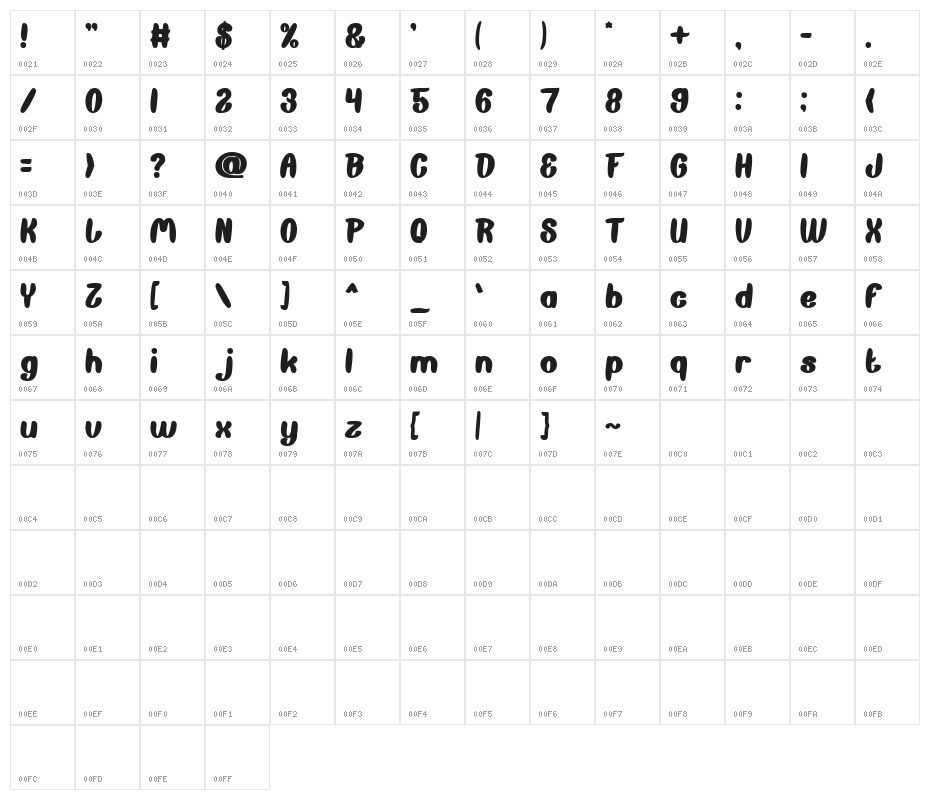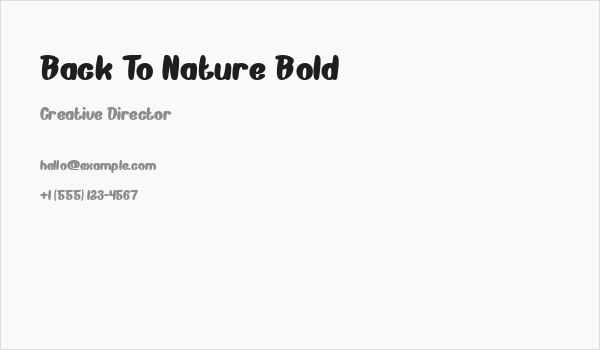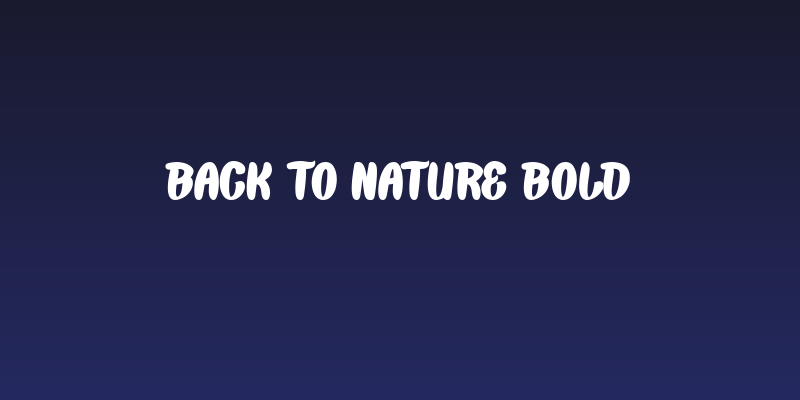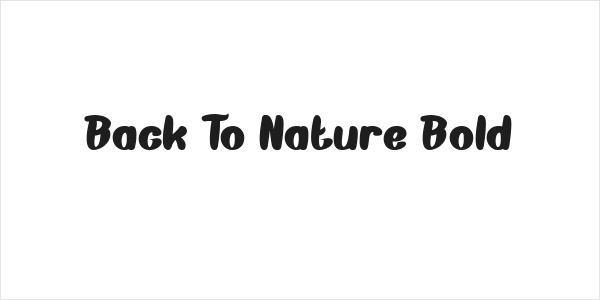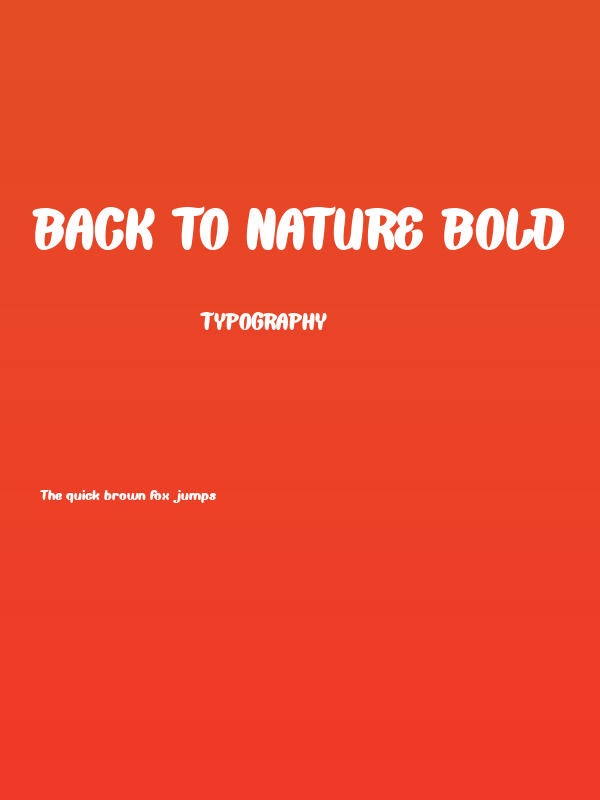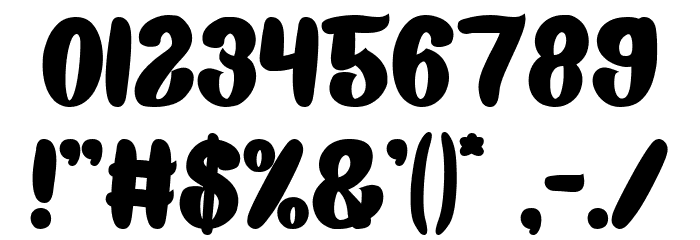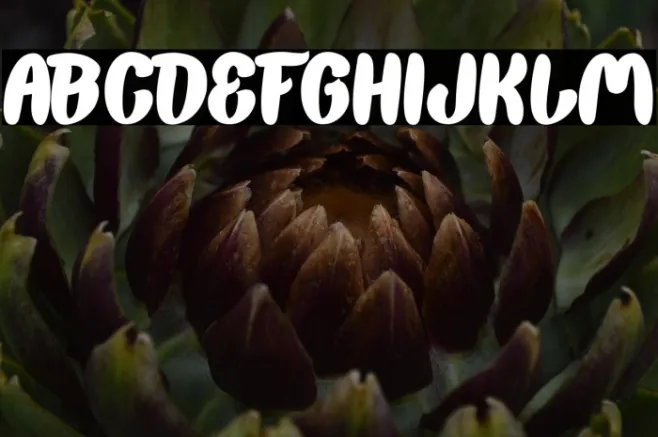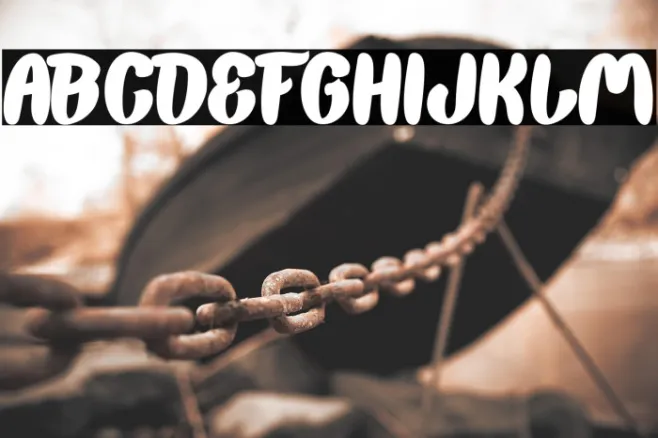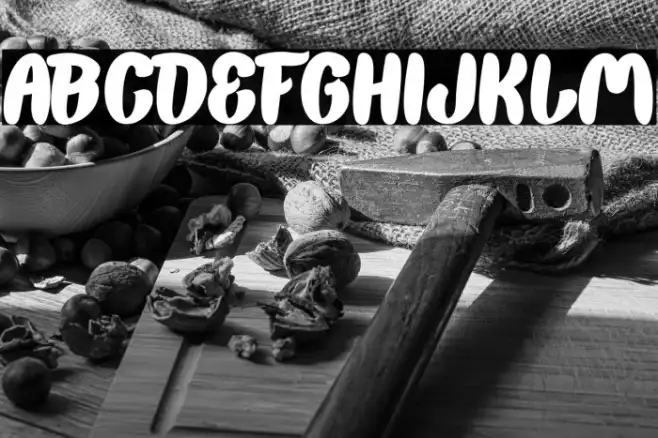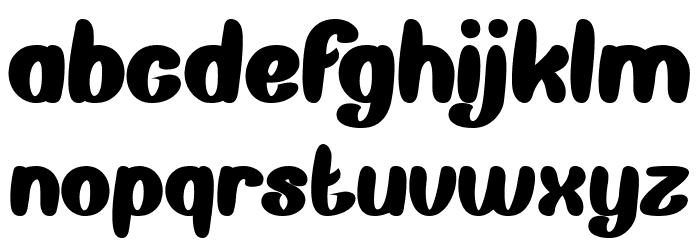
Back To Nature Bold Font
Back To Nature Bold Description
This font features a bold and playful design with a hand-drawn aesthetic. The letters are rounded and have a smooth, flowing appearance, giving it a friendly and approachable feel. The strokes are thick and consistent, providing a strong presence on the page. The uppercase and lowercase letters maintain a cohesive style, while the numbers and special characters blend seamlessly with the overall look. This font is ideal for projects that require a touch of whimsy and creativity.
| Overall Style | Playful, Creative |